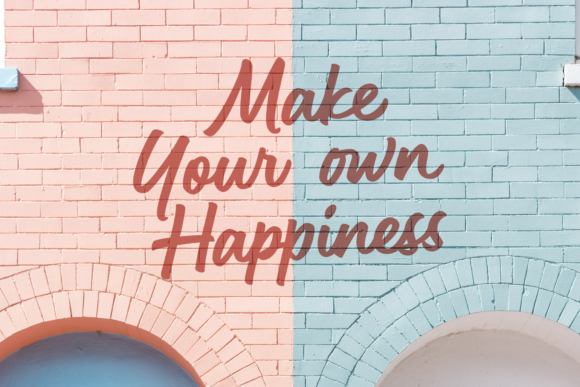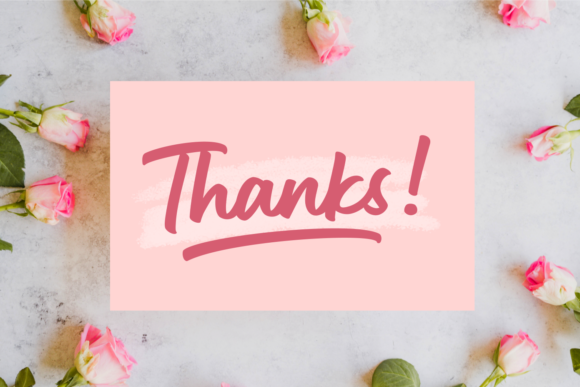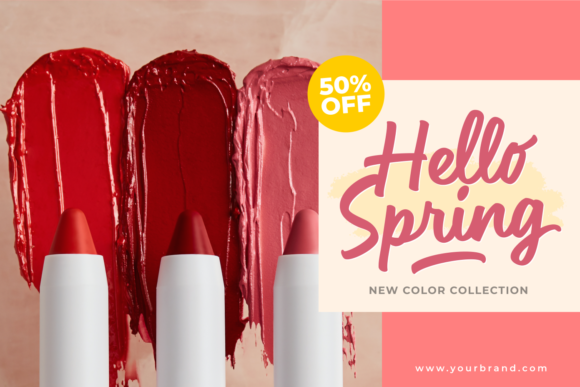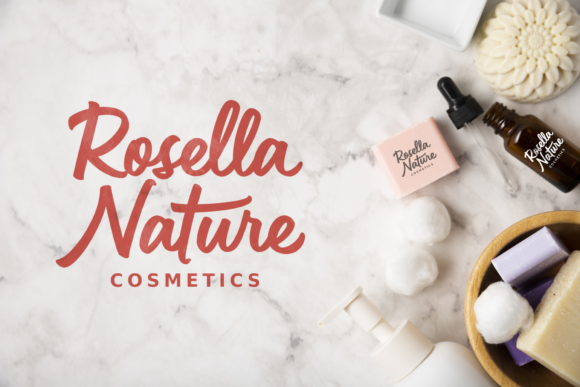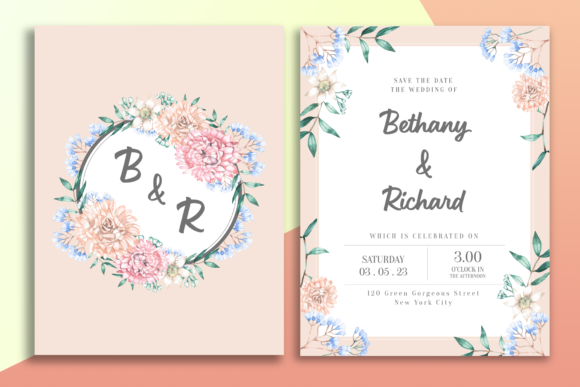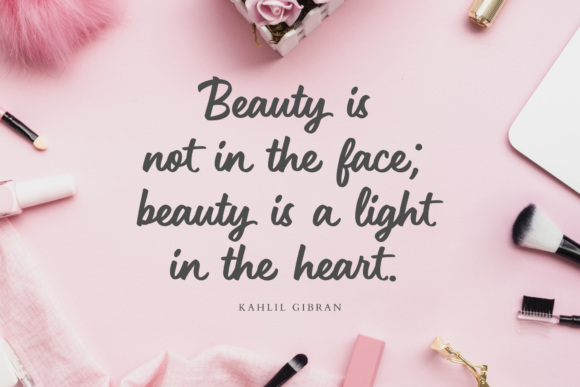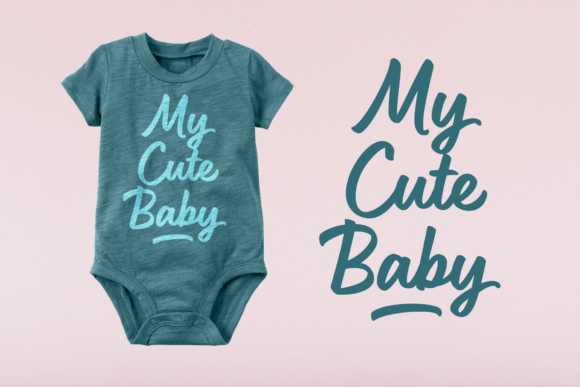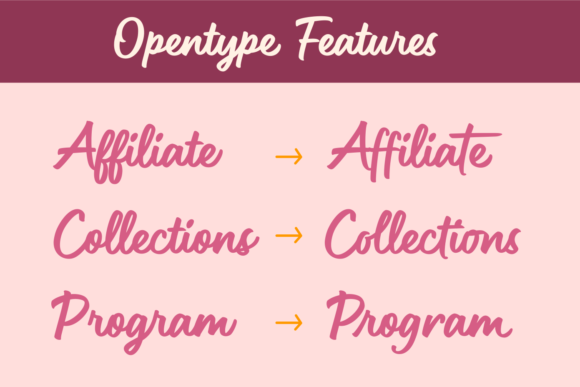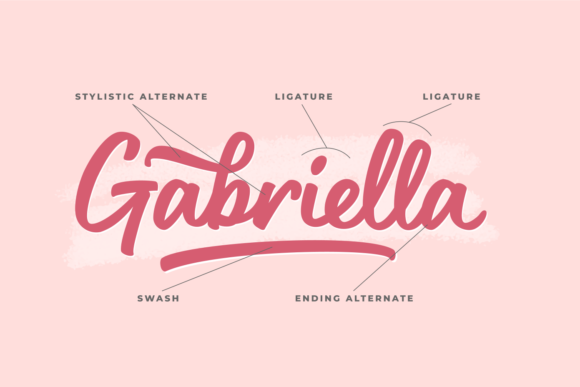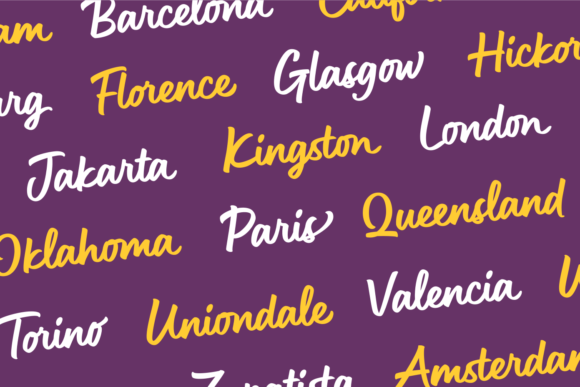
Shopie Font
About Shopie Font
Shopie is a bold handwritten, carefully handcrafted to become a true favorite. It will elevate a wide range of design projects to the highest level, be it branding, headings, wedding designs, invitations, signatures, logos, labels, and much more!